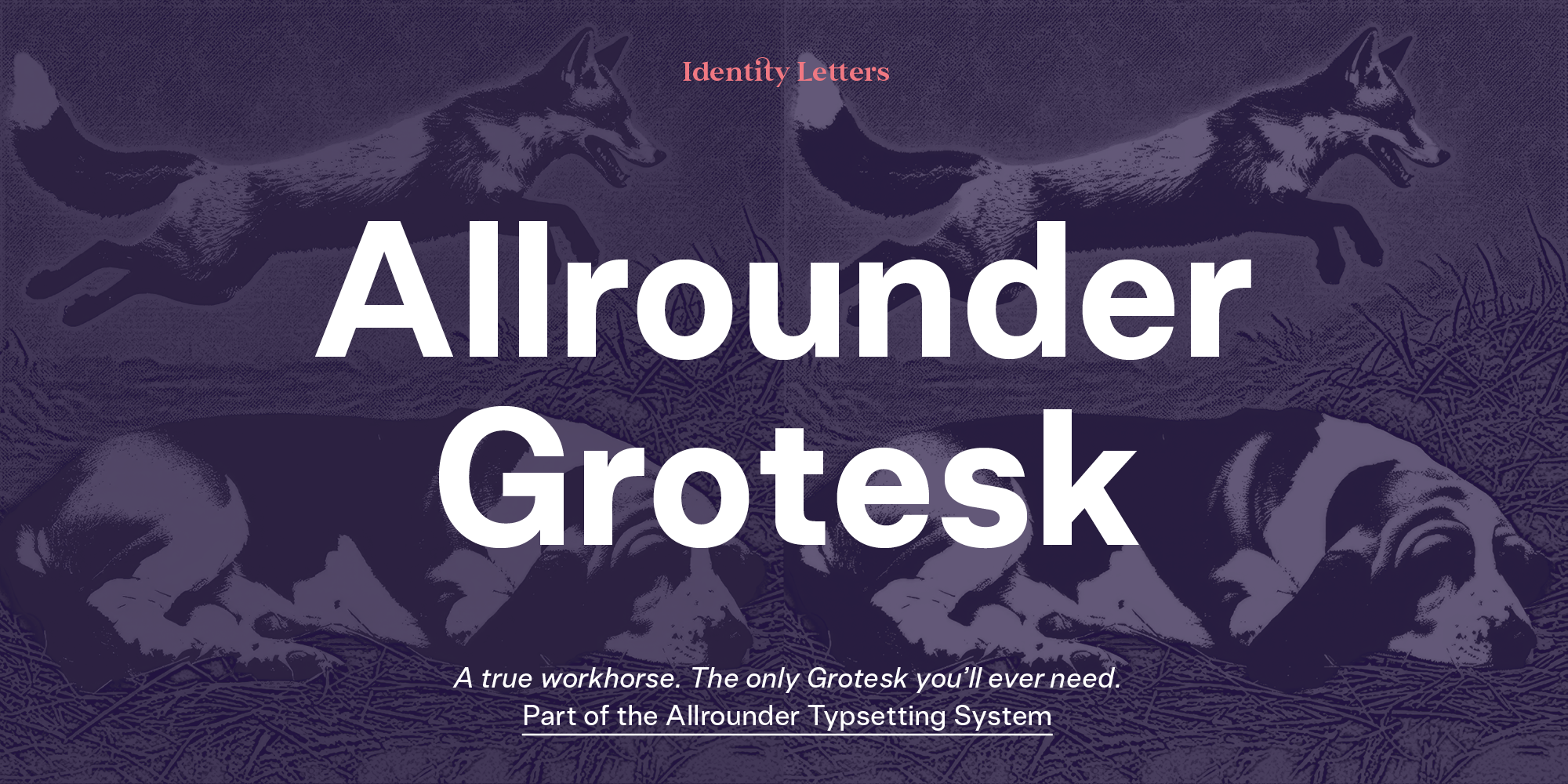
The Allrounder Grotesk Font Free Download is a highly versatile and modern sans-serif typeface, making it an outstanding choice for nearly any design project requiring clarity, readability, and a contemporary feel. This adaptable font is perfectly suited for corporate branding, web design, mobile app interfaces, editorial layouts, signage systems, and packaging design. Imagine it providing the clean, professional look for a tech company's website, ensuring crystal-clear readability in a complex infographic, or giving a sophisticated yet approachable tone to a new product's packaging. Its straightforward forms and excellent legibility ensure your message is communicated effectively across all mediums.
What makes Allrounder Grotesk Font truly exciting is its exceptional balance between neutrality and distinctiveness. It's not just another generic sans-serif; it has a subtle warmth and a well-crafted aesthetic that allows it to blend seamlessly into diverse contexts while maintaining a professional presence. Its robust construction ensures it performs beautifully in both large headlines and small body text, making it a true workhorse. Designers will appreciate its reliability and how it provides a solid foundation for any visual communication, allowing the content to shine without distraction.
The Allrounder Grotesk Font family typically offers an extensive range of weights and styles, making it incredibly flexible for creating sophisticated typographical hierarchies. You can often find a wide spectrum of variations, including Thin, Light, Regular, Medium, SemiBold, Bold, ExtraBold, and Black, providing immense control over visual emphasis. Most comprehensive versions also include corresponding Italic styles, further enhancing its utility for varied design needs. These comprehensive options ensure that the Allrounder Grotesk Font Free Download is an invaluable asset for designers seeking a dependable, high-quality, and aesthetically pleasing typeface for a multitude of applications.